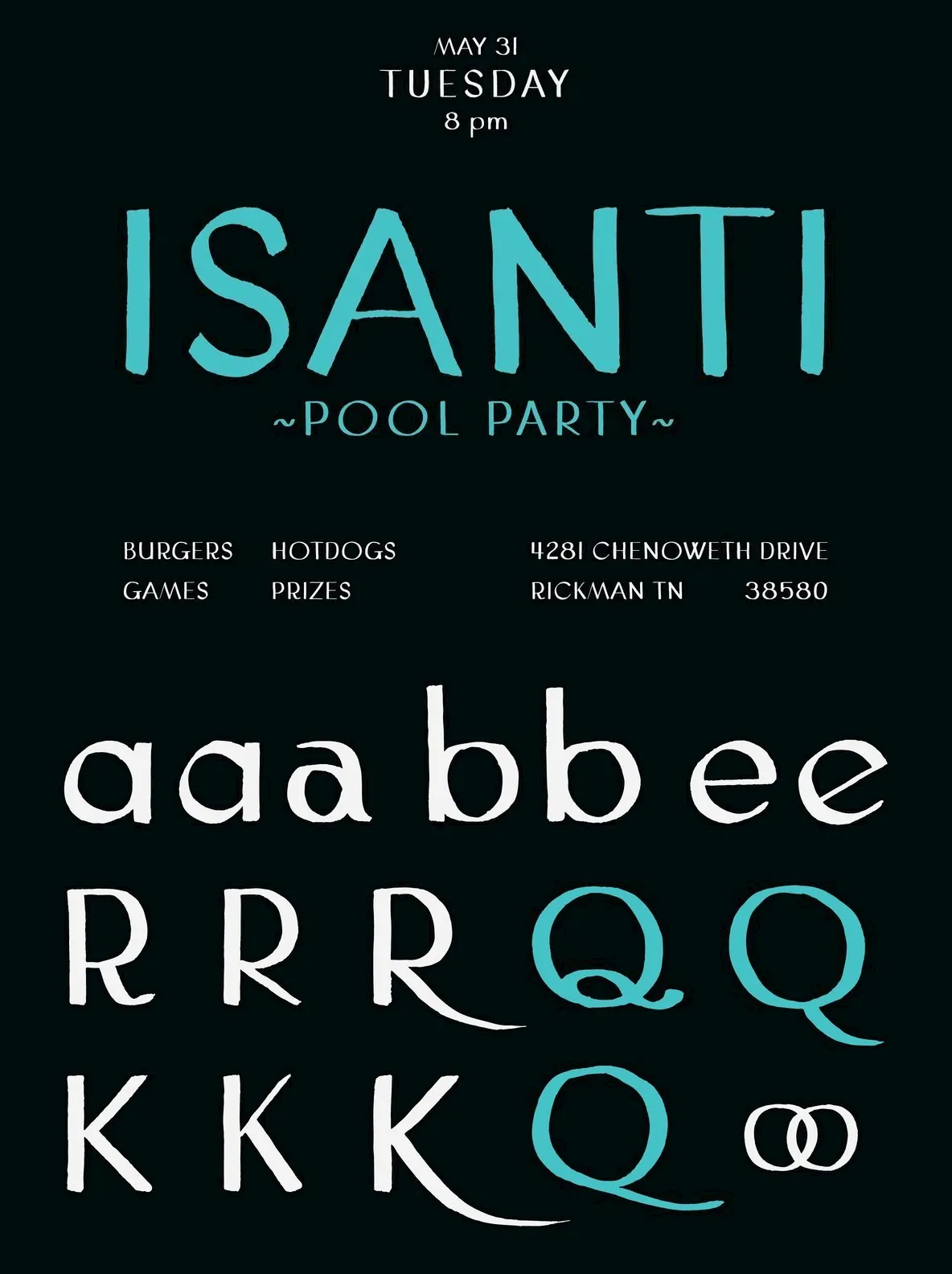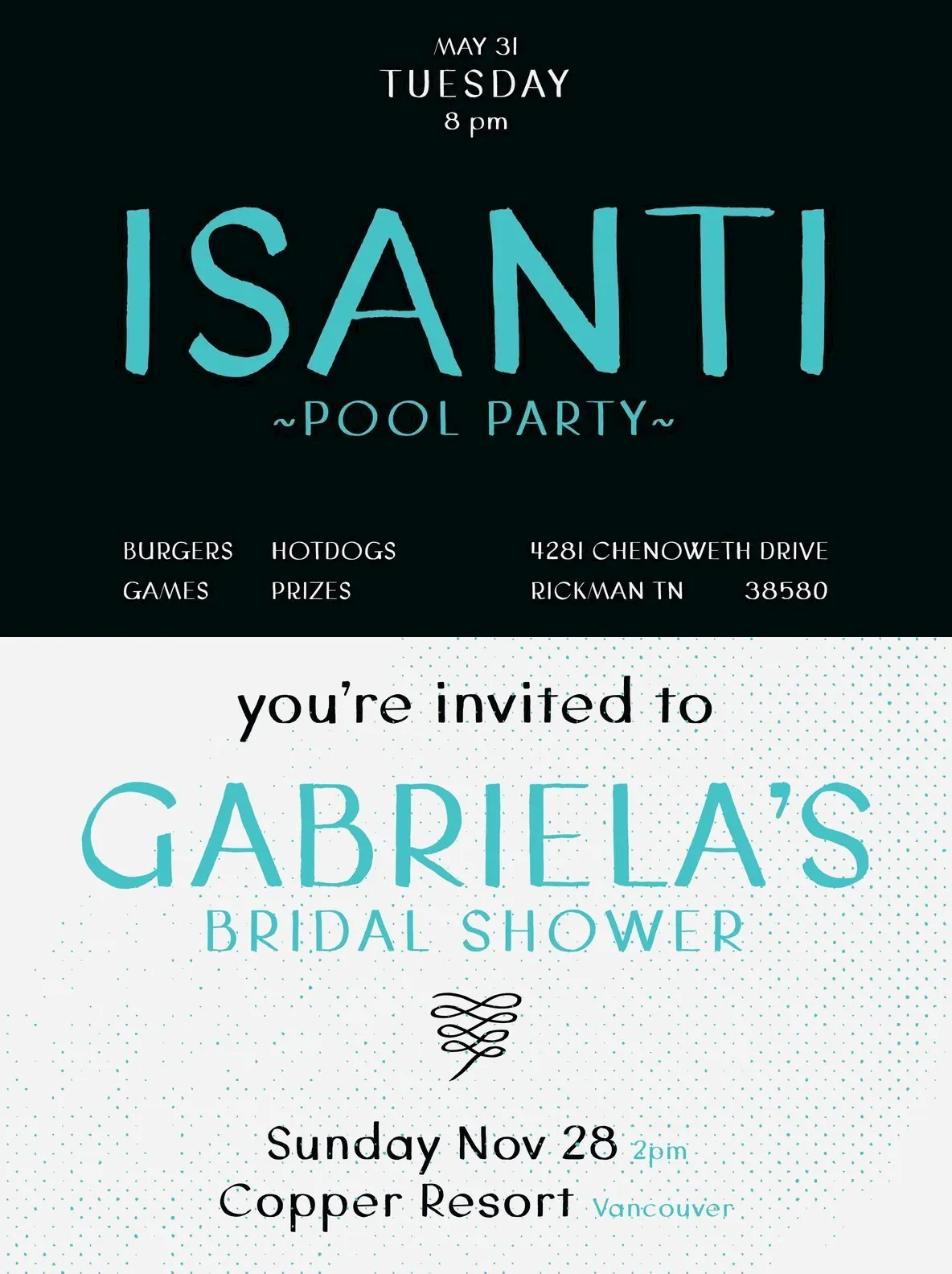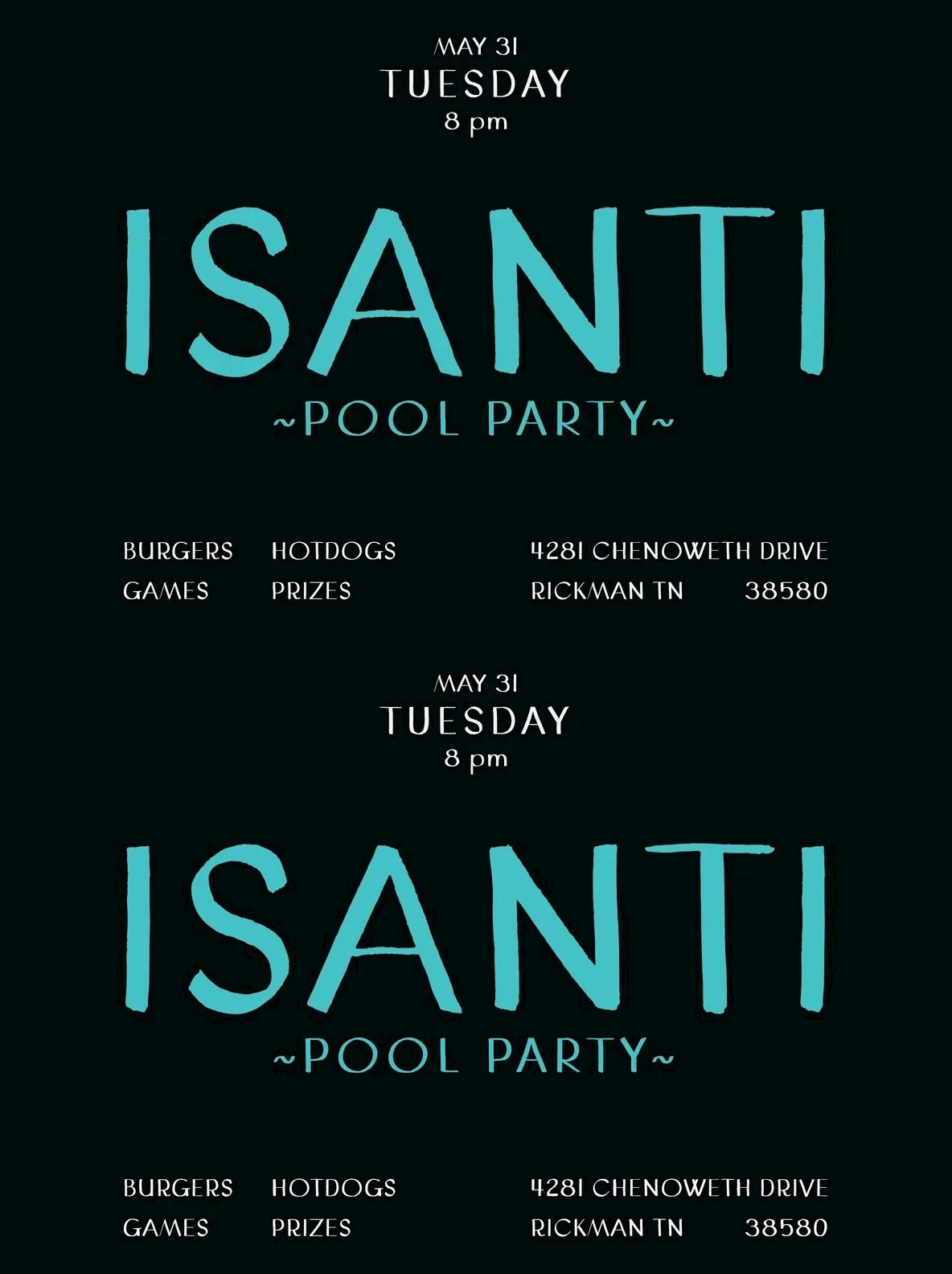
Named after one of the most Swedish-American counties in Minnesota, Isanti is a hand lettered calligraphic font made to honor our nordic heritage, Lutheran illumination, and European newsstands. Generous spacing was given to Isanti to help with legibility at smaller point sizes, so it can be used for text as well as display. Isanti also offers up many stylistic alternates including old style letters, ligatures, and a handful of decorative swashes. Available in Open Type format so accessing all of those alternates is a cinch.